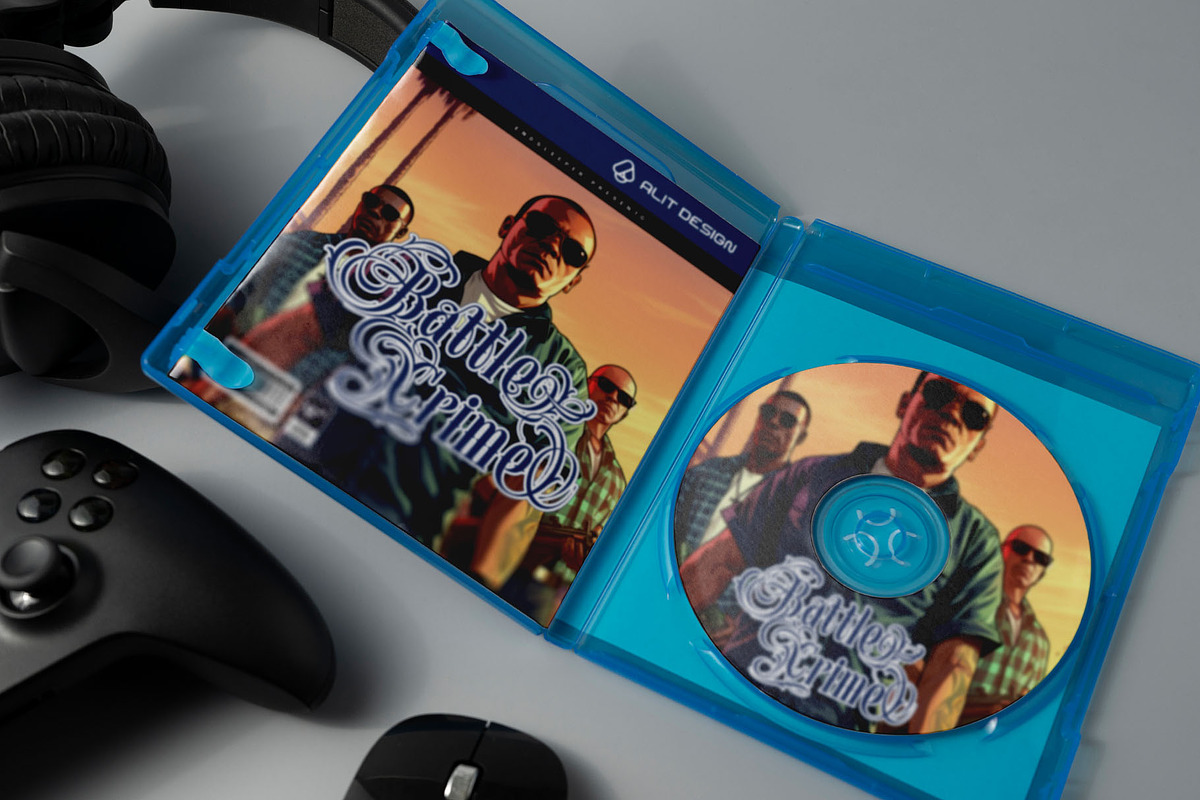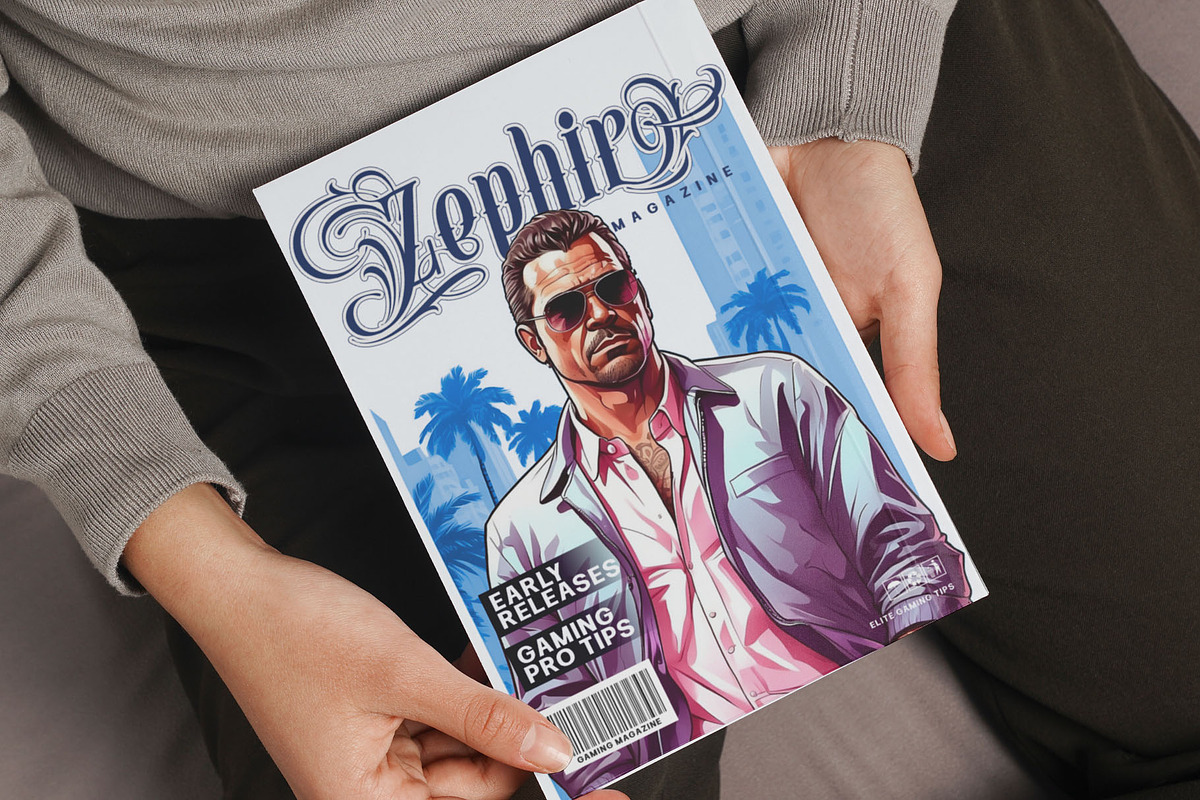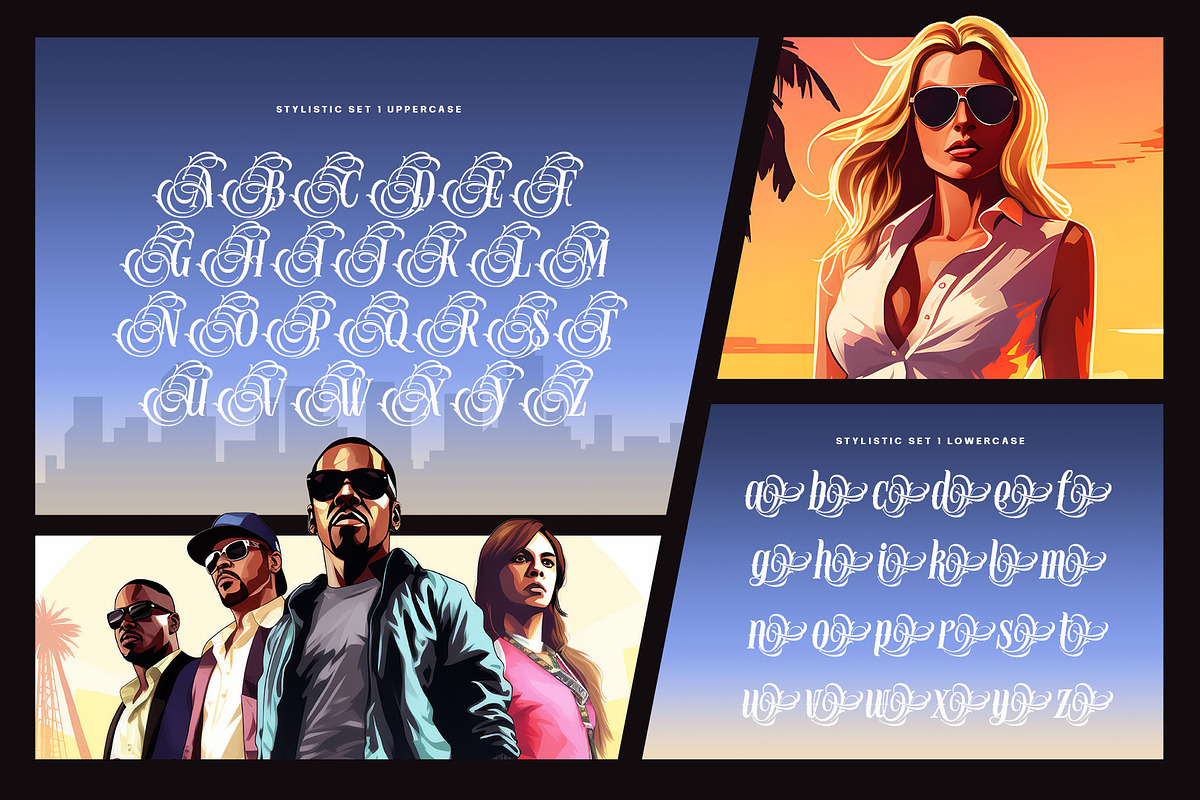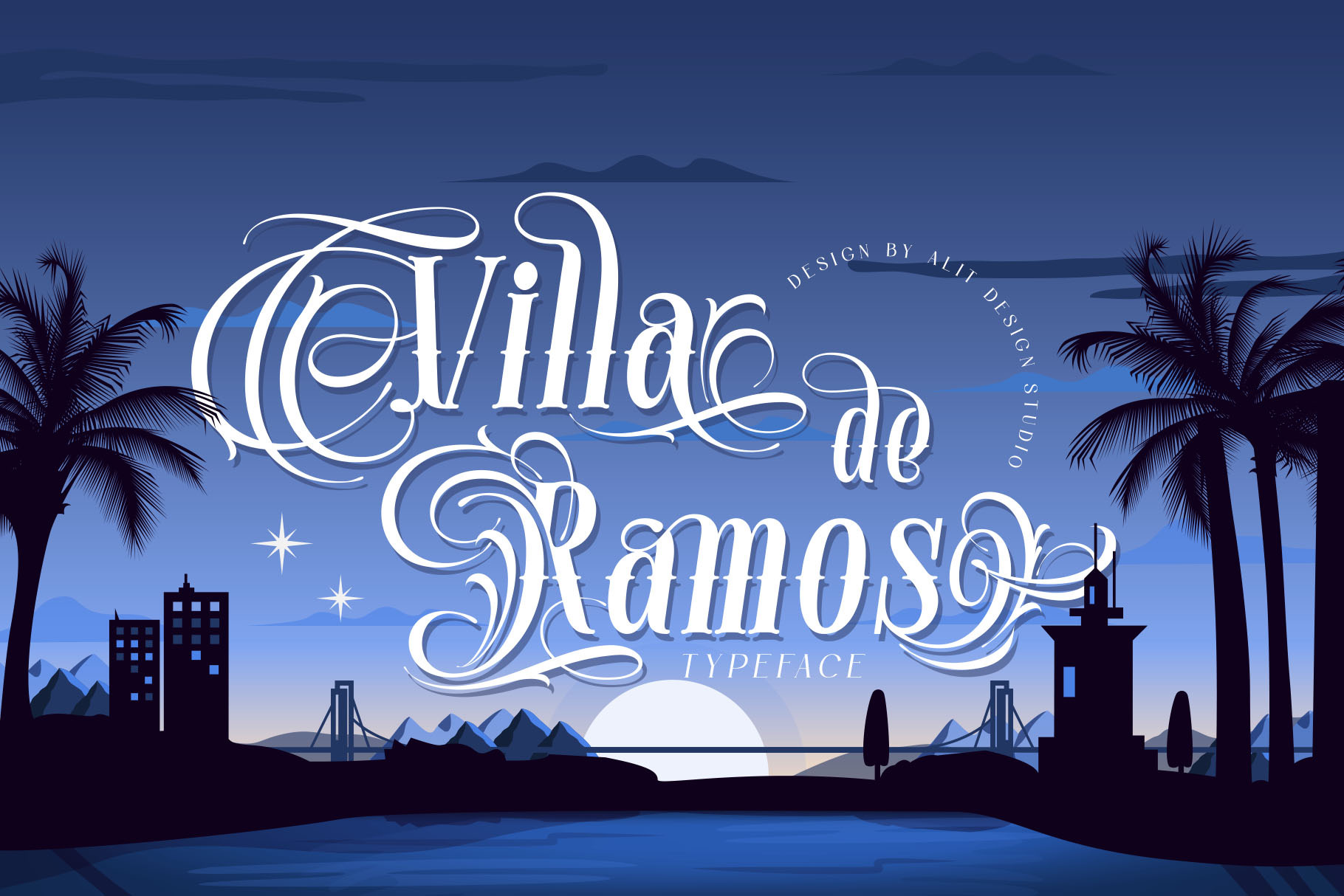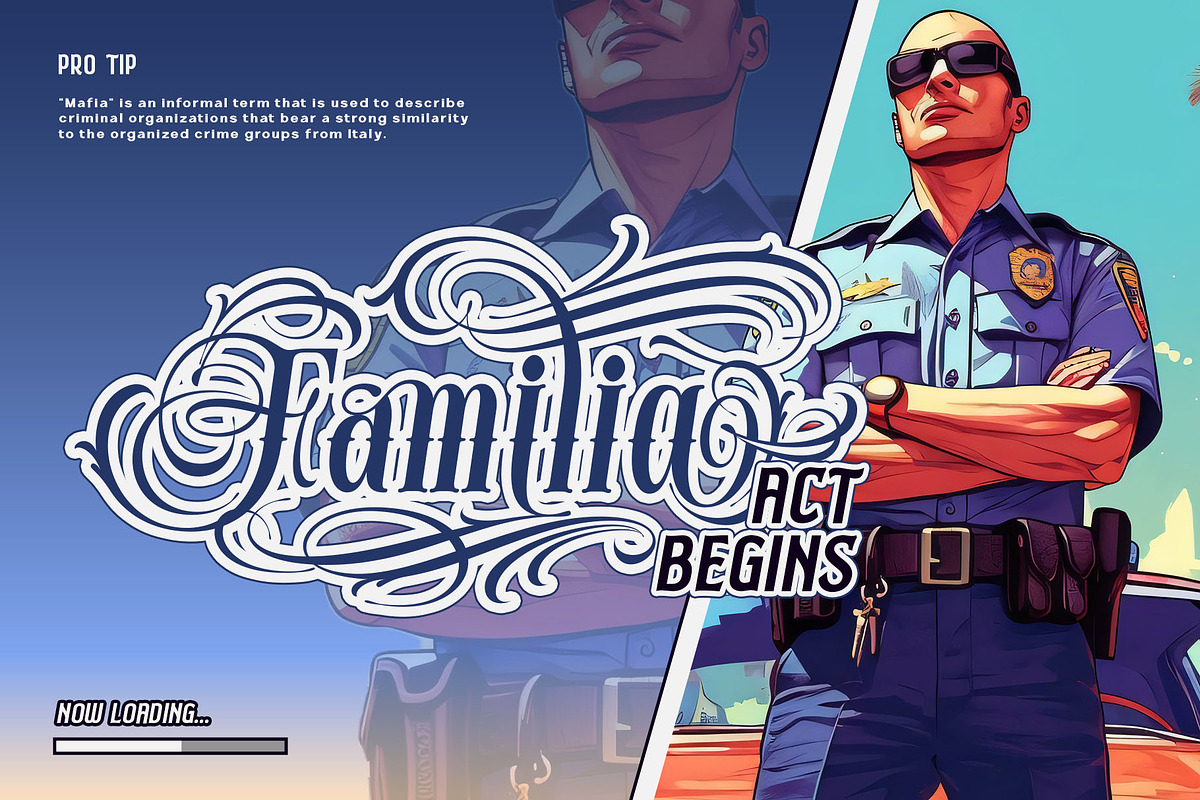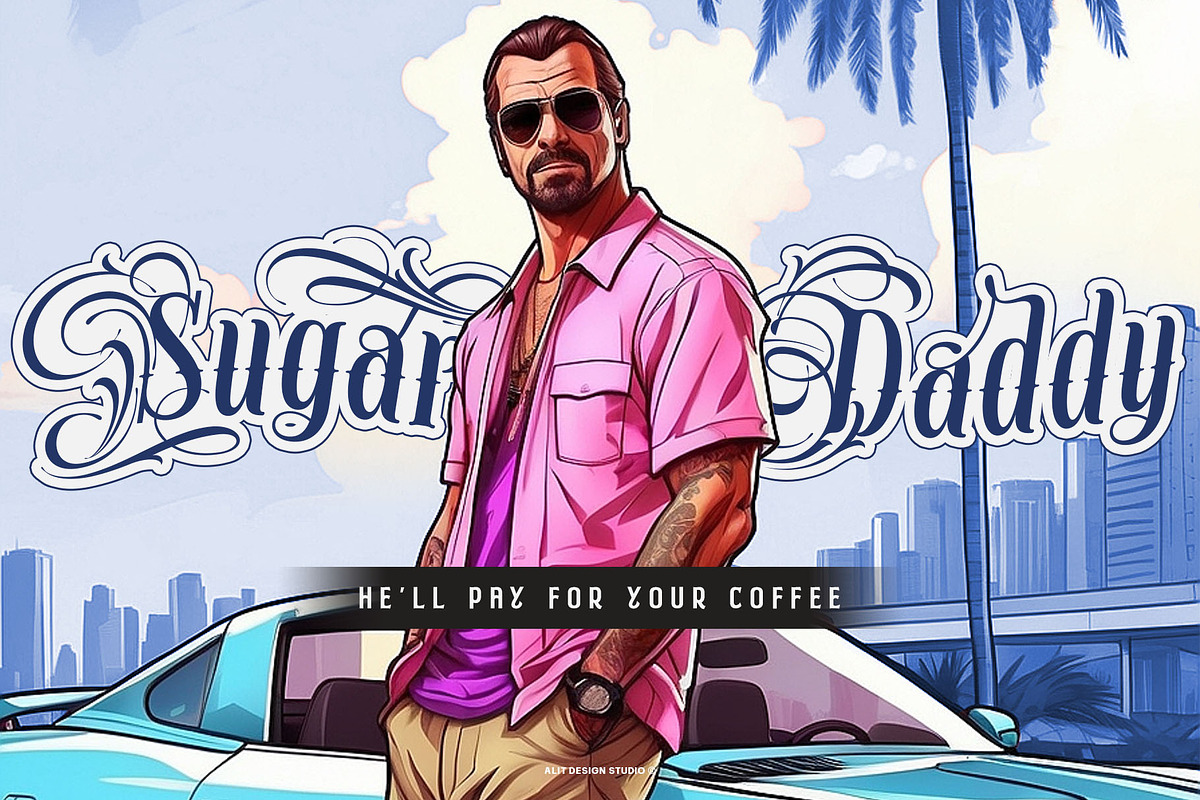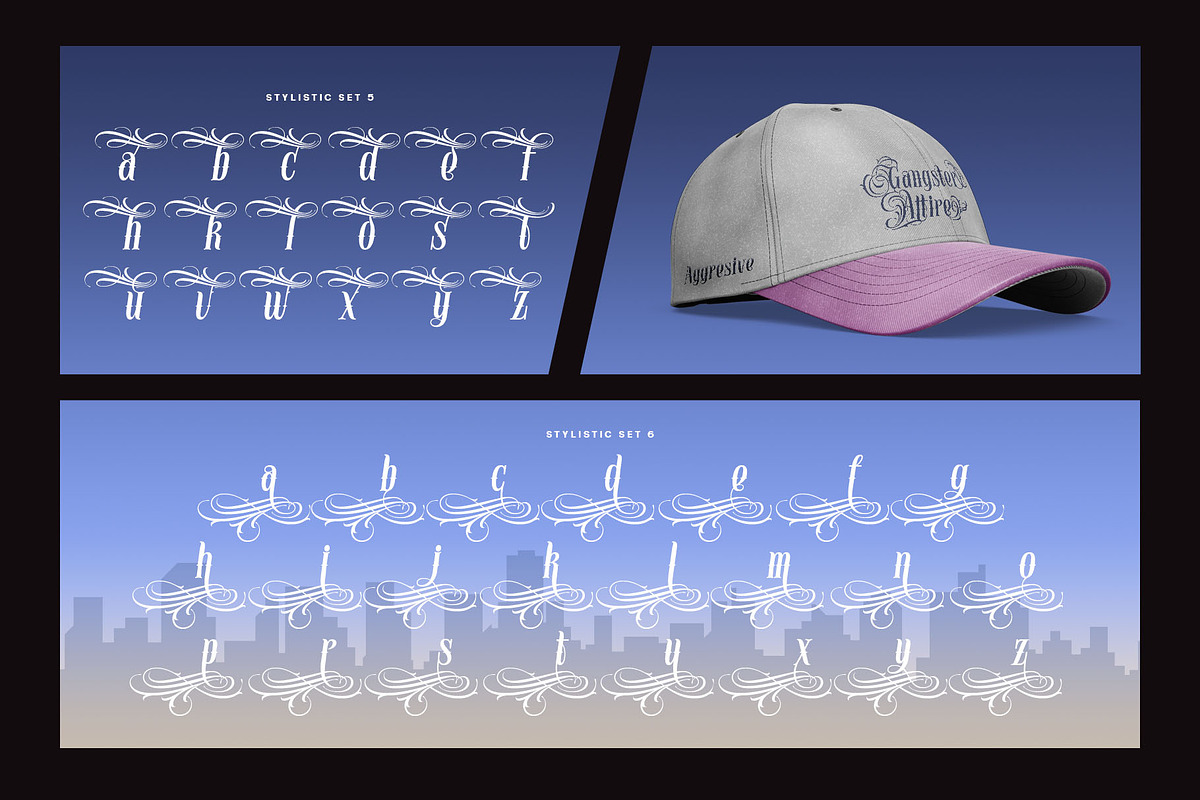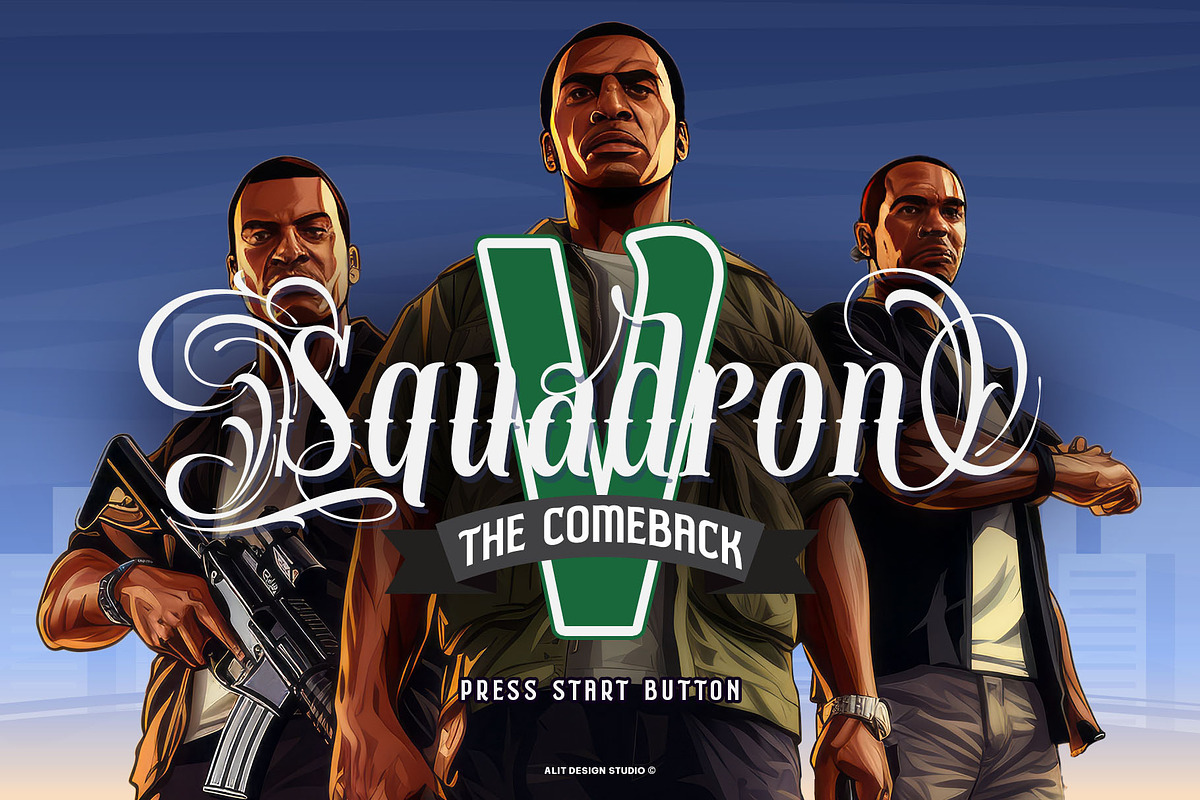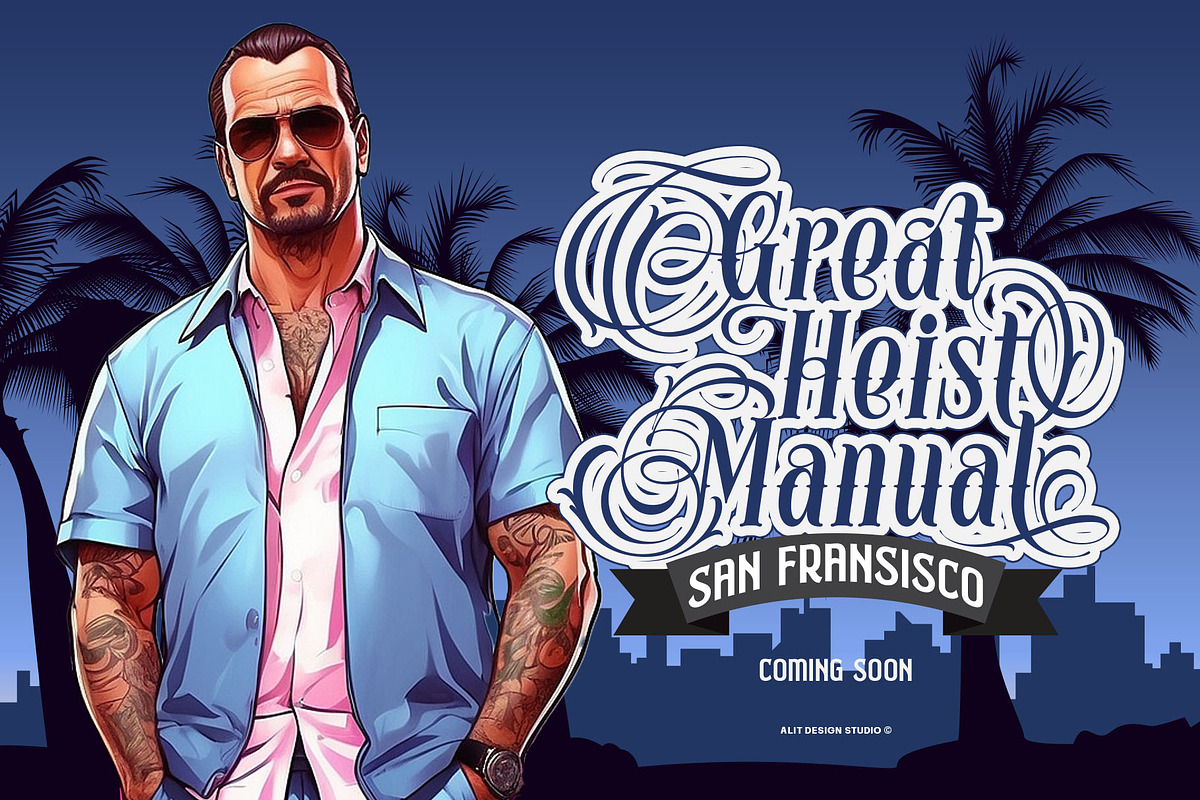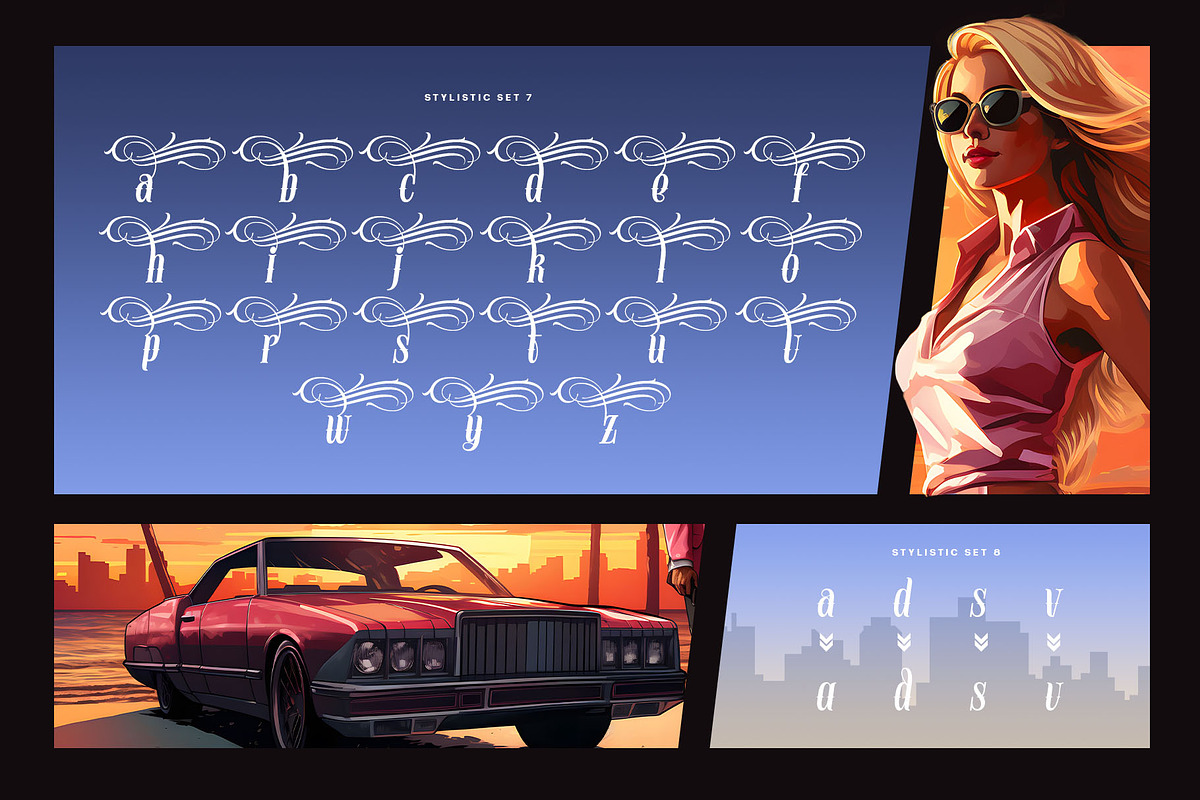
Villa de Ramos Typeface
Villa de Ramos is an exquisite script font that masterfully blends elegance with the bold, edgy aesthetics of Mexican gangster tattoo art. This unique typeface captures the essence of traditional calligraphy while infusing it with a modern, rebellious flair. Designed to stand out, Villa de Ramos is perfect for anyone looking to add a touch of sophistication and attitude to their projects.
- 848 Character Glyphs: With an extensive character set, Villa de Ramos offers a vast array of letters, numbers, and symbols to ensure your text stands out.
- Swashes and Ligatures: Enhance your designs with beautiful swashes and expertly crafted ligatures, adding a fluid and artistic touch to your text.
- Alternates: Multiple stylistic alternates for each letter give you the flexibility to customize and create unique typographic compositions.
- Multilingual Support: Villa de Ramos supports a wide range of languages, making it a versatile choice for international projects.
Whether you're designing tattoos, logos, invitations, or branding materials, Villa de Ramos delivers an unparalleled blend of elegance and edge, making it a perfect choice for projects that demand a distinctive and stylish look.